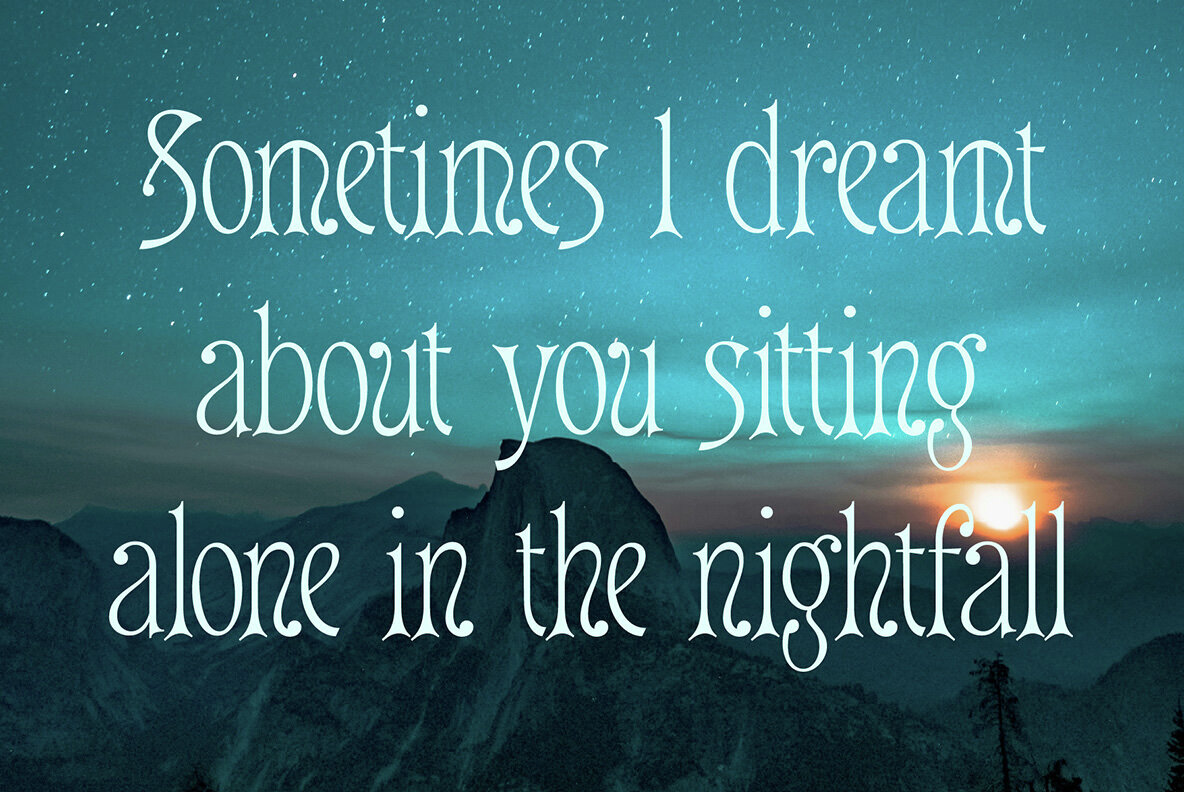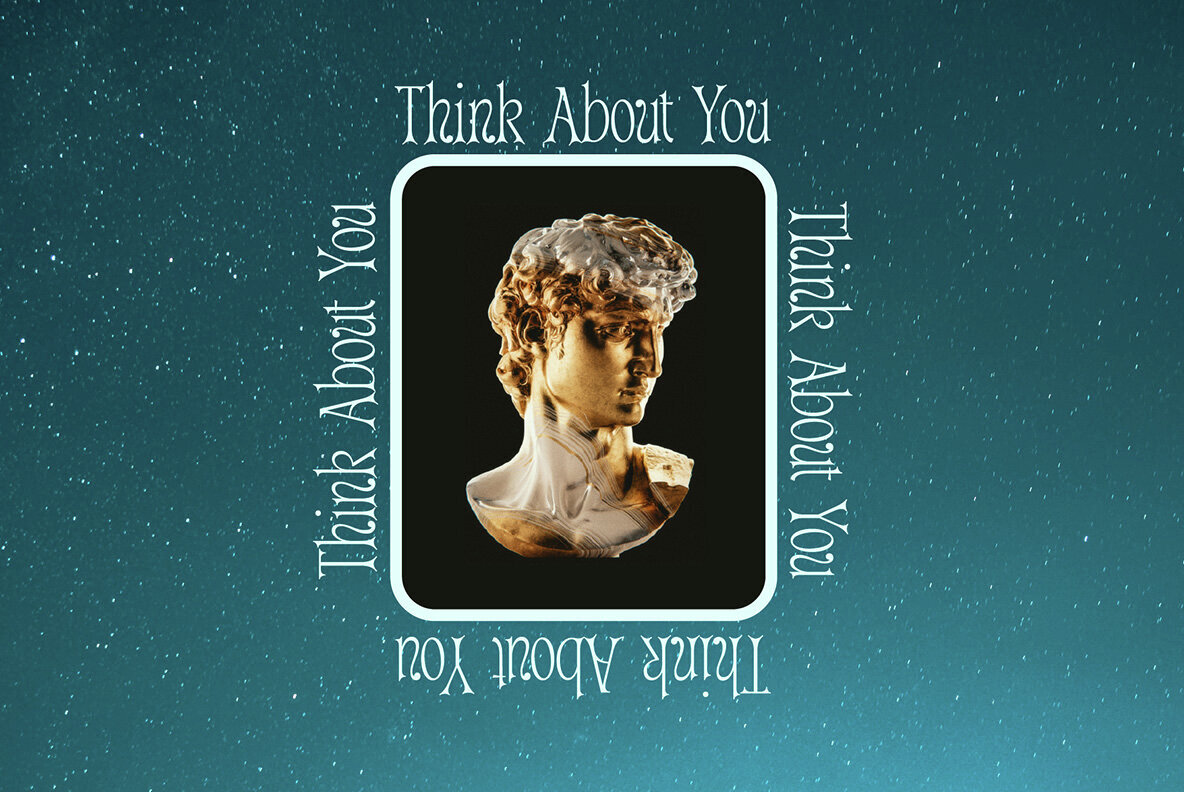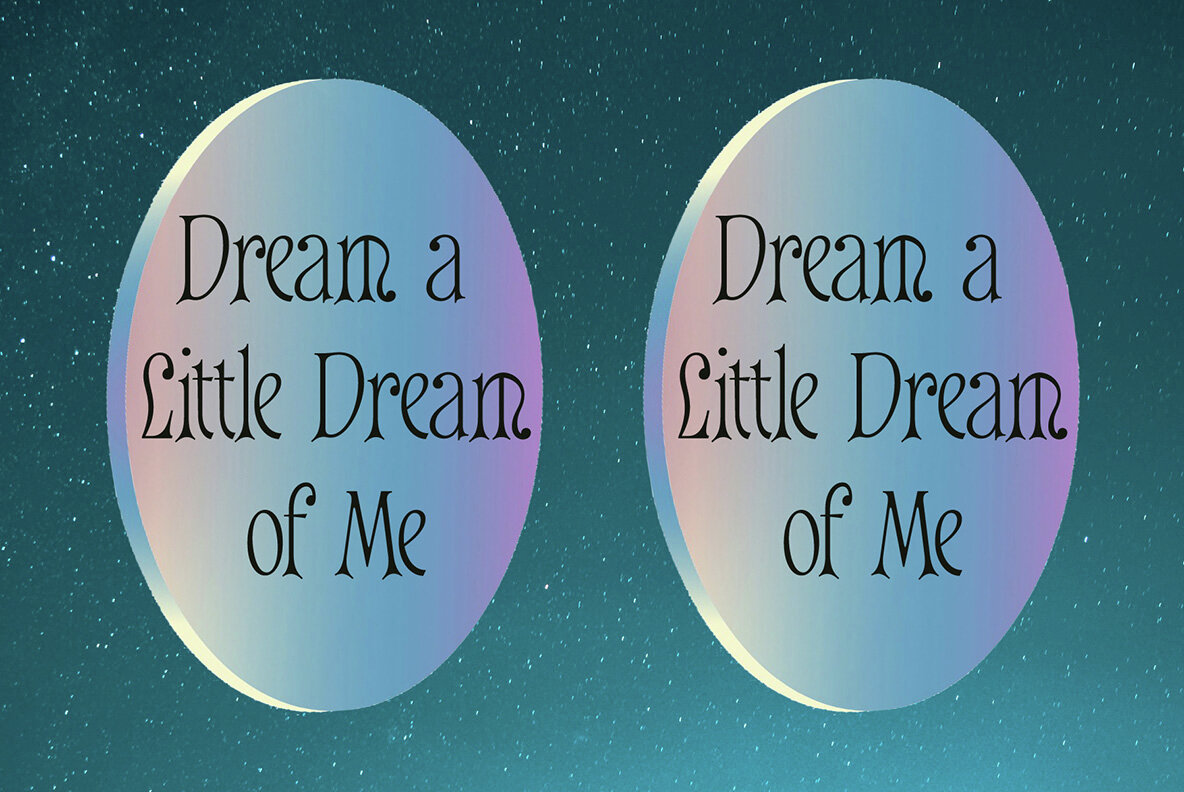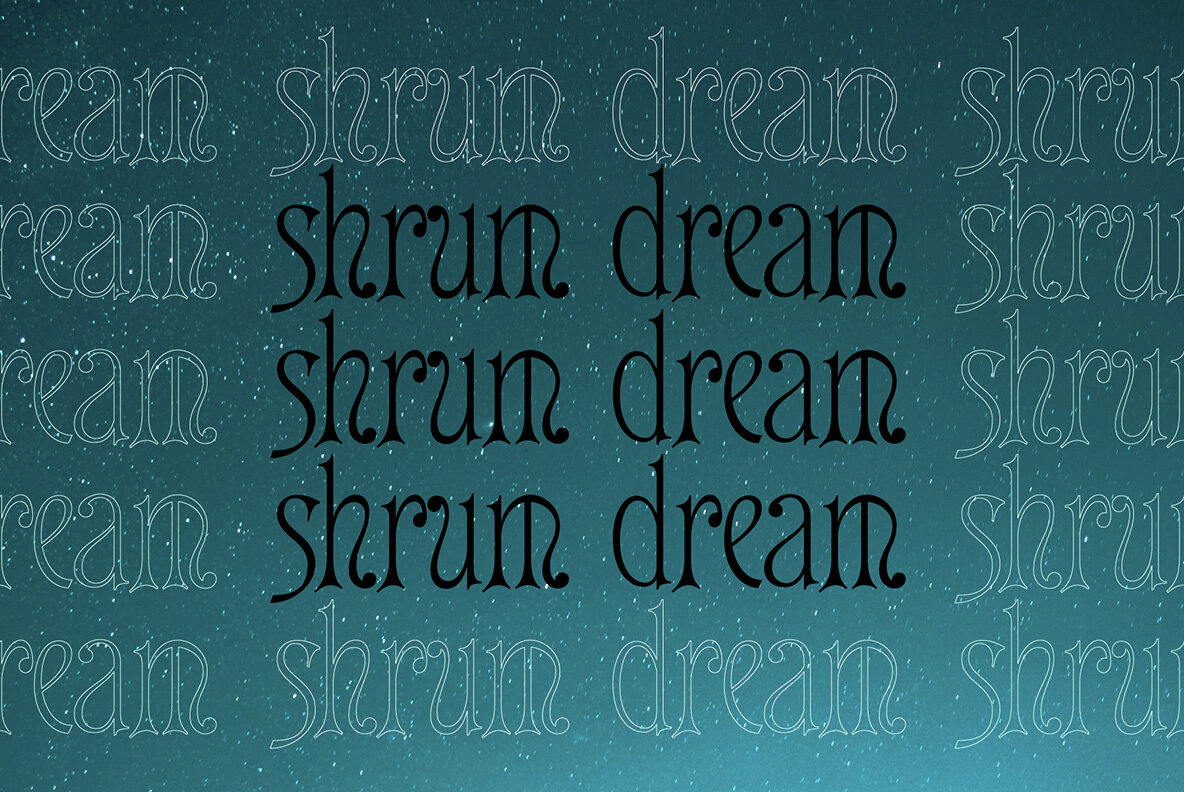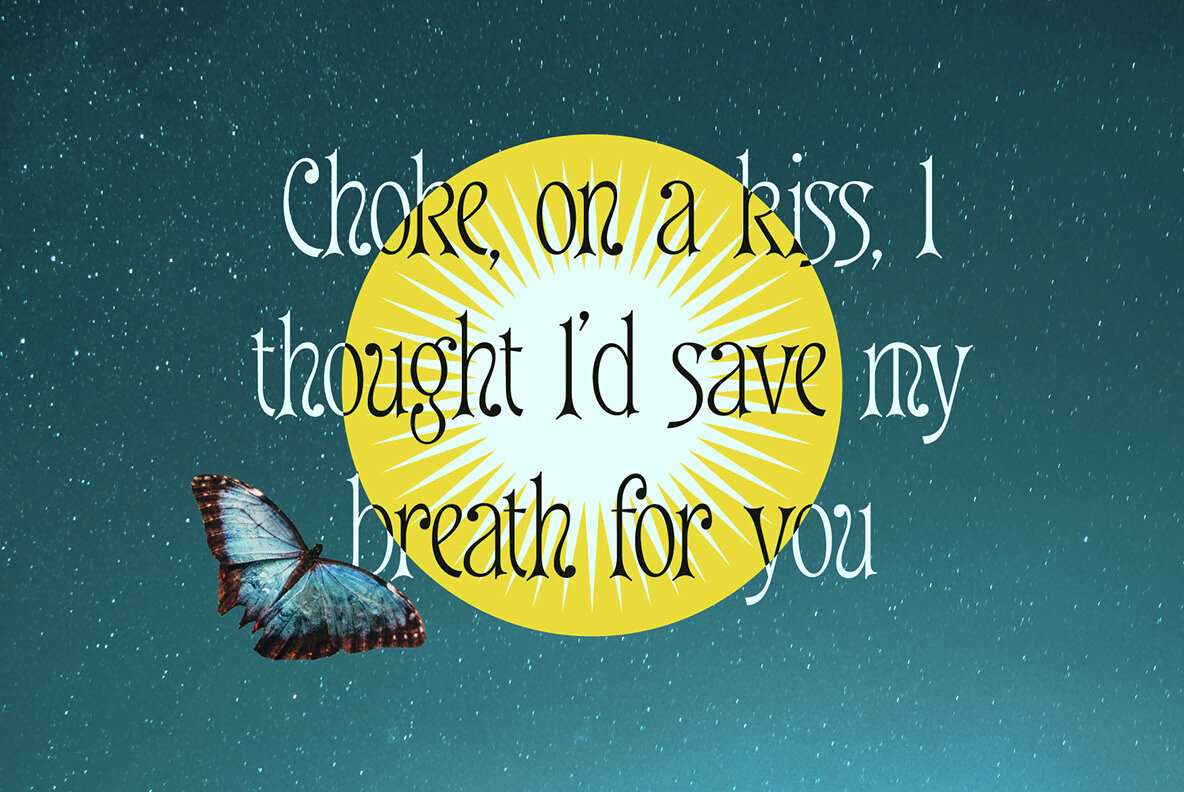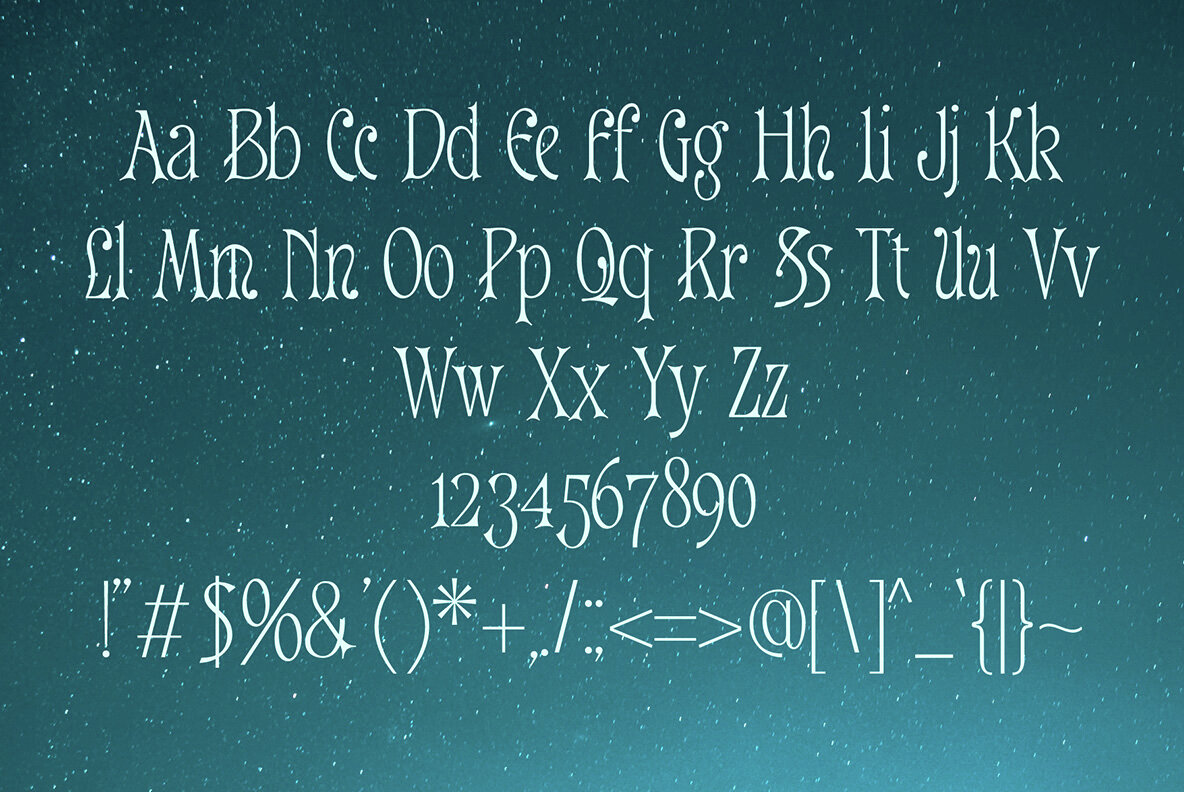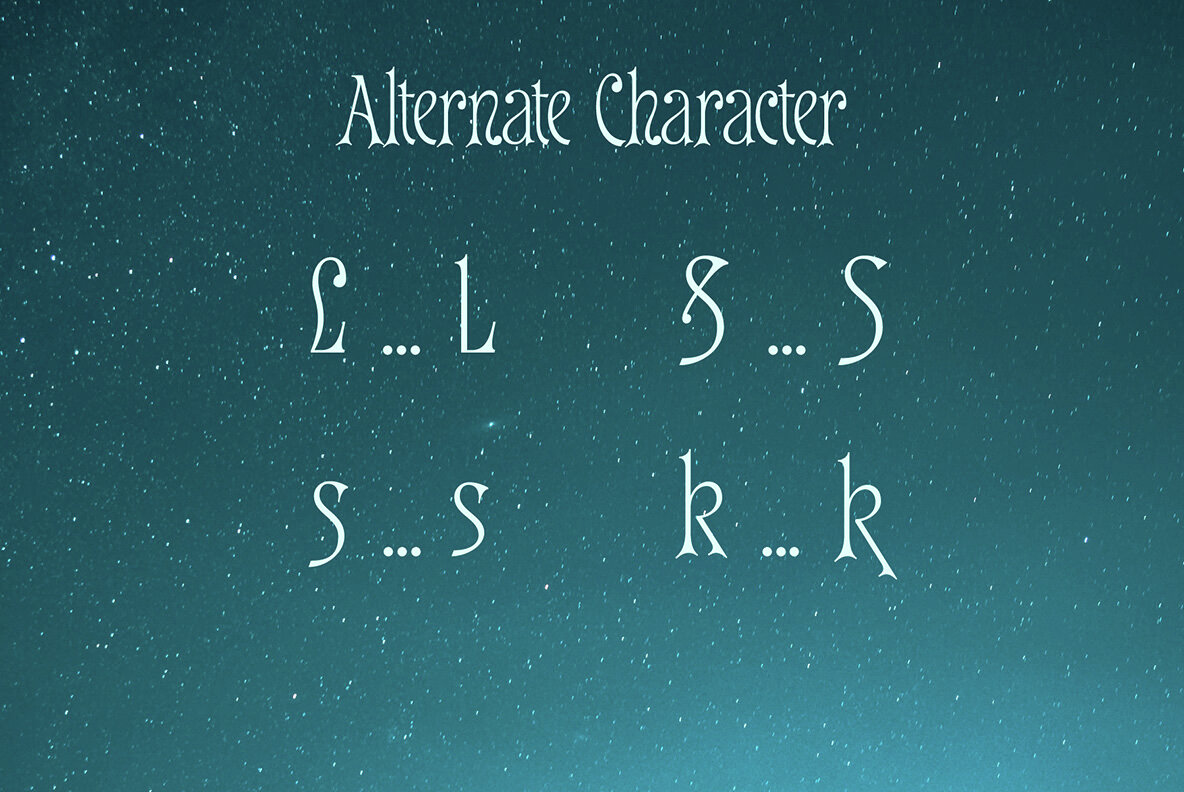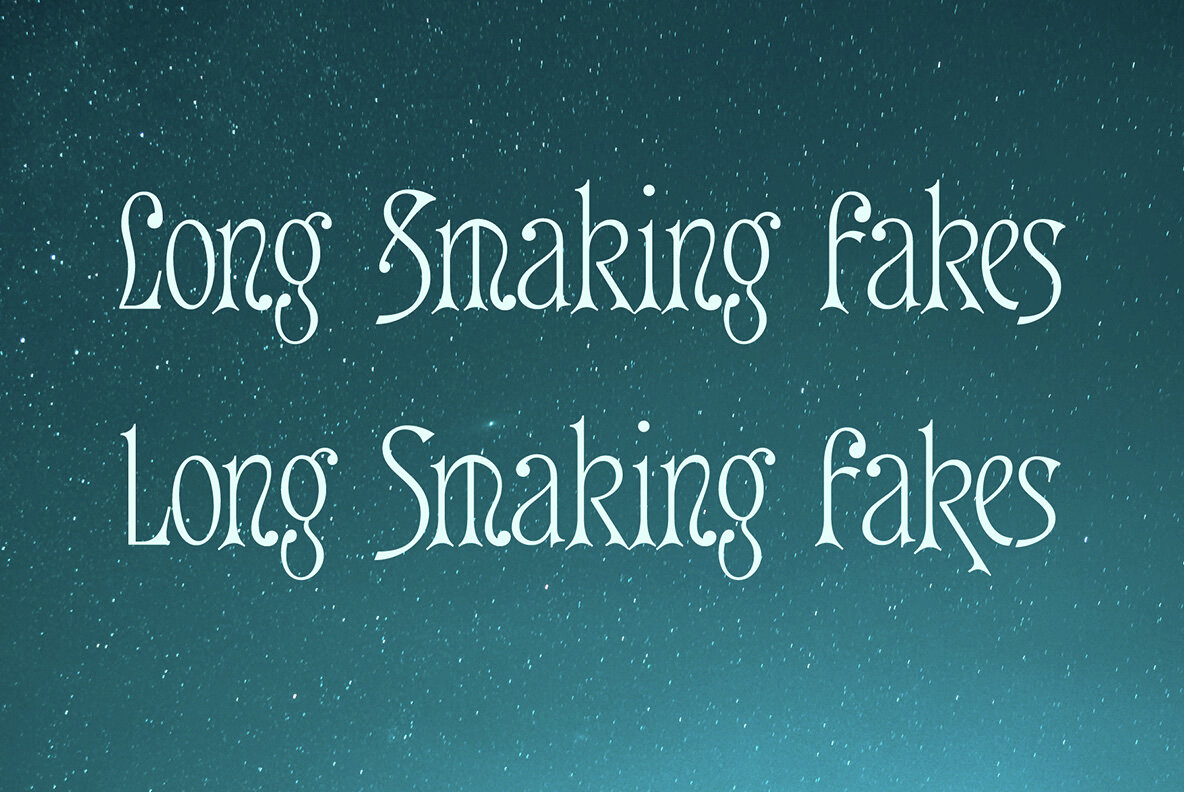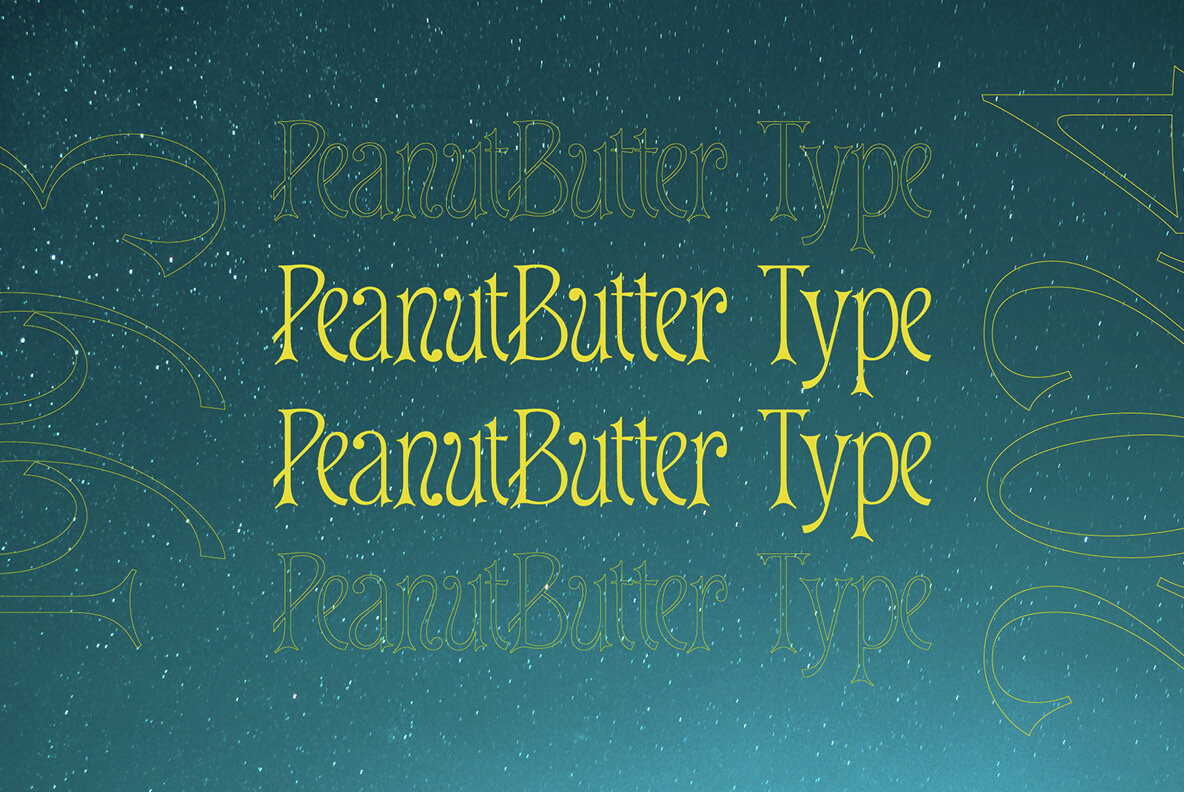
Shrum Font
Shrum
Shrum is a striking display typeface that combines the ornate, angular style of blackletter with a bold Y2K influence. Inspired by the sharp angles, dramatic curves, and prominent vertical strokes of medieval calligraphy, Shrum introduces a futuristic, tech-inspired twist. This makes it ideal for designs merging old-world gothic aesthetics with a modern, digital edge.
Perfect for projects seeking a unique blend of historical and contemporary elements, Shrum captures attention through its dynamic form. Its distinctive design is suitable for branding, posters, and any creative work that requires a powerful and intriguing typographic statement.